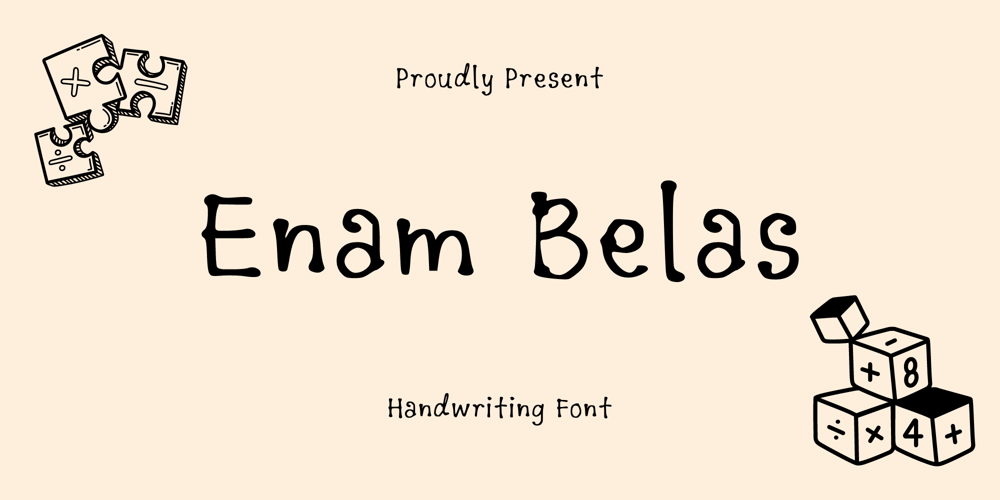
Enam Belas
Enam Belas font
Enam Belas Font Family was designed by published by Sidkia Fonts. Enam Belas contains 1 styles and family package options. Enam Belas font is a simple regular handwriting font, this font is cute and also unique suitable for diaries, notes, or invitations, and other designs.